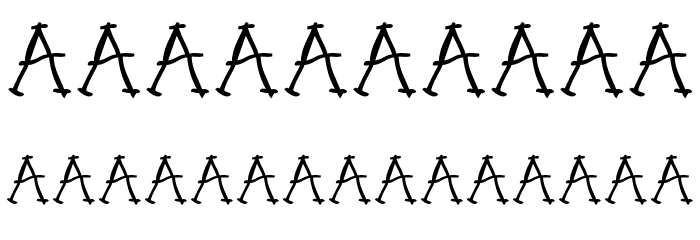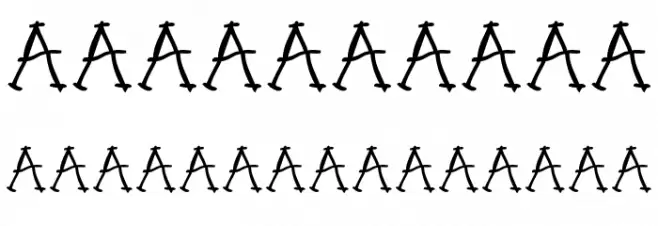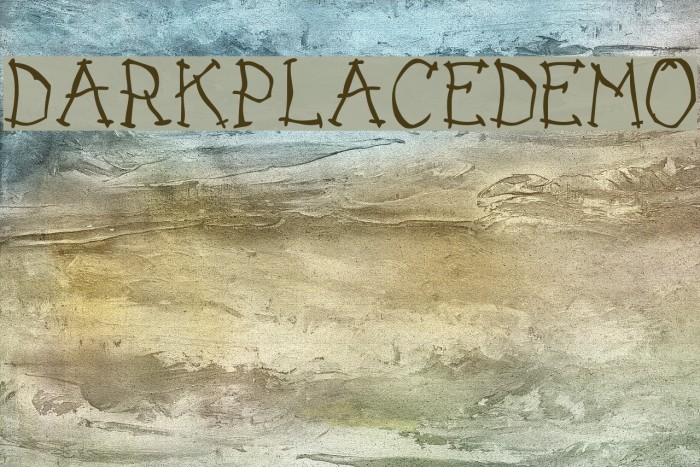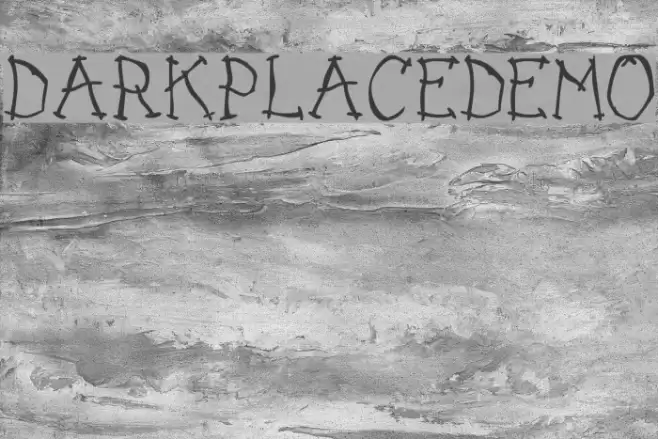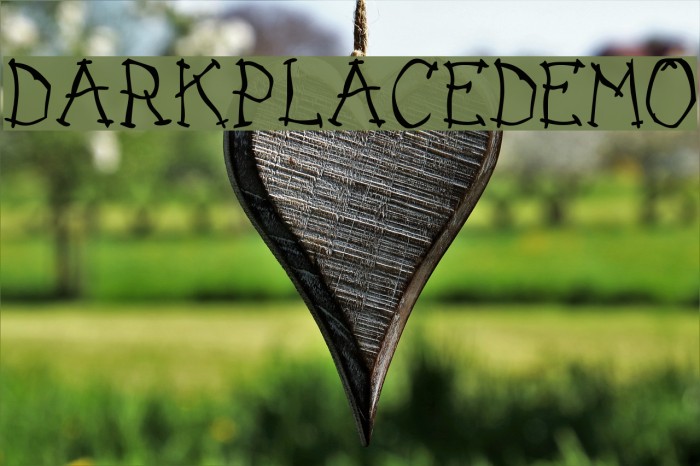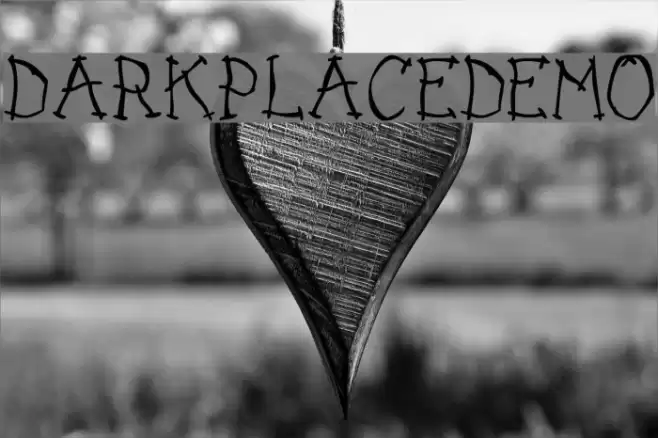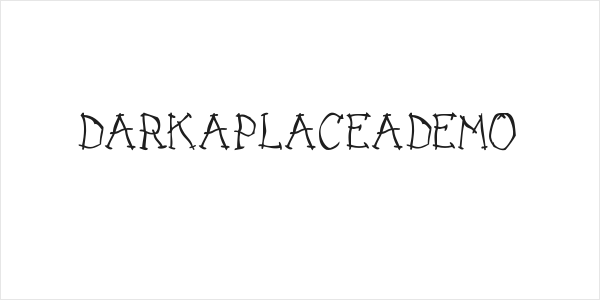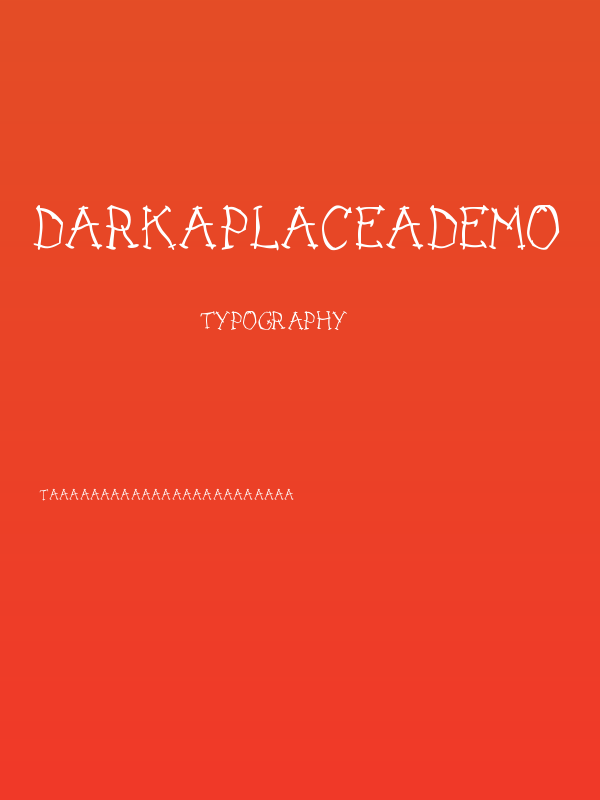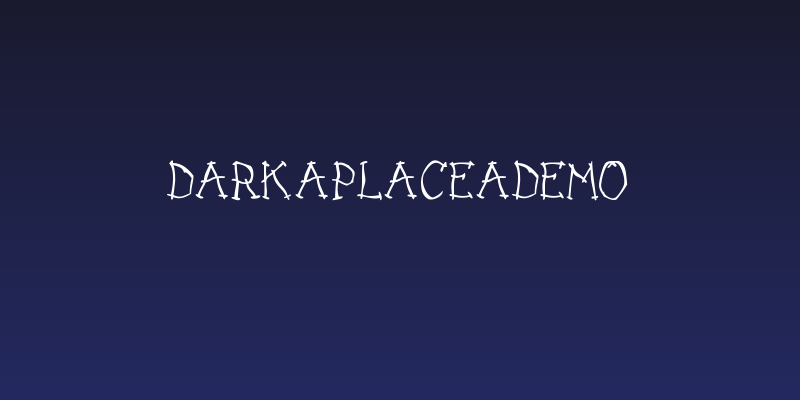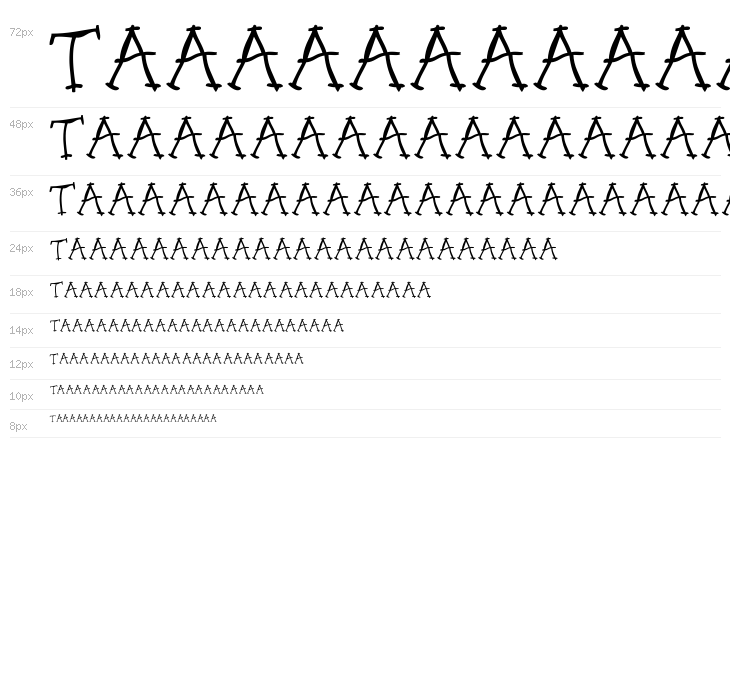
DARK PLACE_DEMO Font
DARK PLACE_DEMO Description
This font features a unique and decorative style with arrow-like serifs that give it a distinctive, edgy appearance. The characters are bold and have a hand-drawn quality, with irregular strokes that add to its quirky charm. The uppercase letters are particularly striking, with each character exhibiting a playful yet structured form. This font is well-suited for creative projects that require a standout typeface with a touch of whimsy and artistic flair.
| Proposed Projects | Ideal for posters, album covers, event invitations, and branding that seeks a unique and artistic touch. |